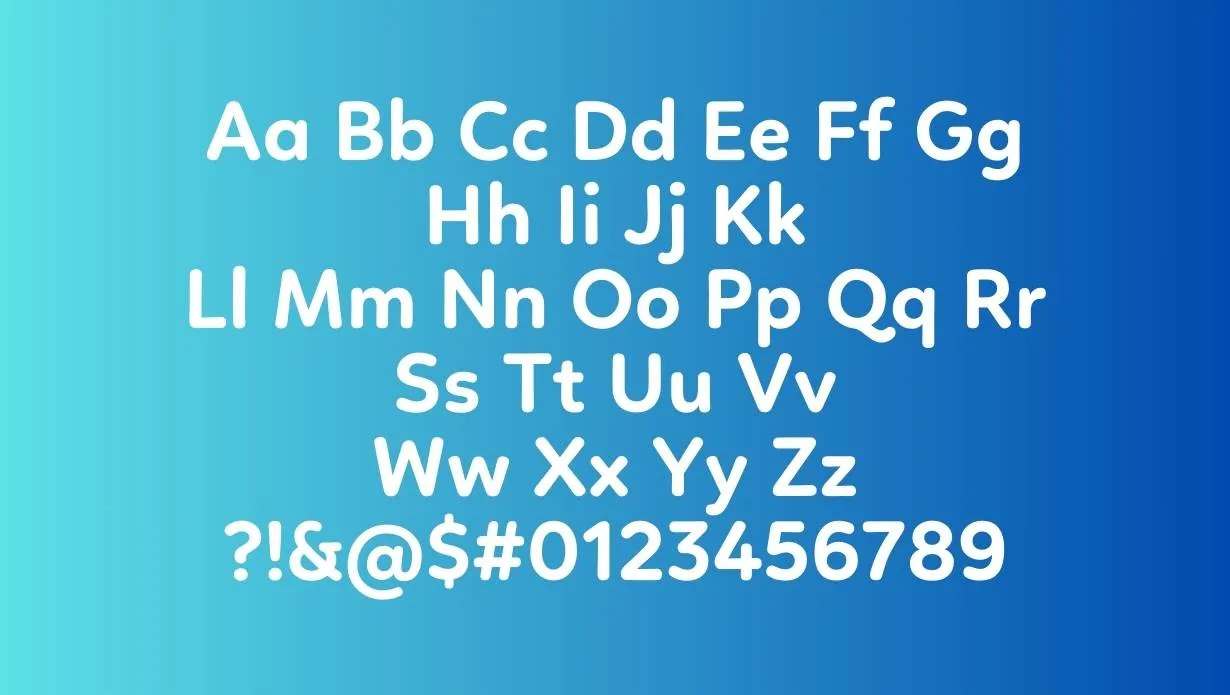
Linotte Font strikes a balance between modernity and simplicity, making it versatile for a range of design projects. Its clean characters ensure readability, making it adaptable for websites, brochures, or any project where clarity is key.
| Name | Linotte Font |
| Designer | Joël Carrouché |